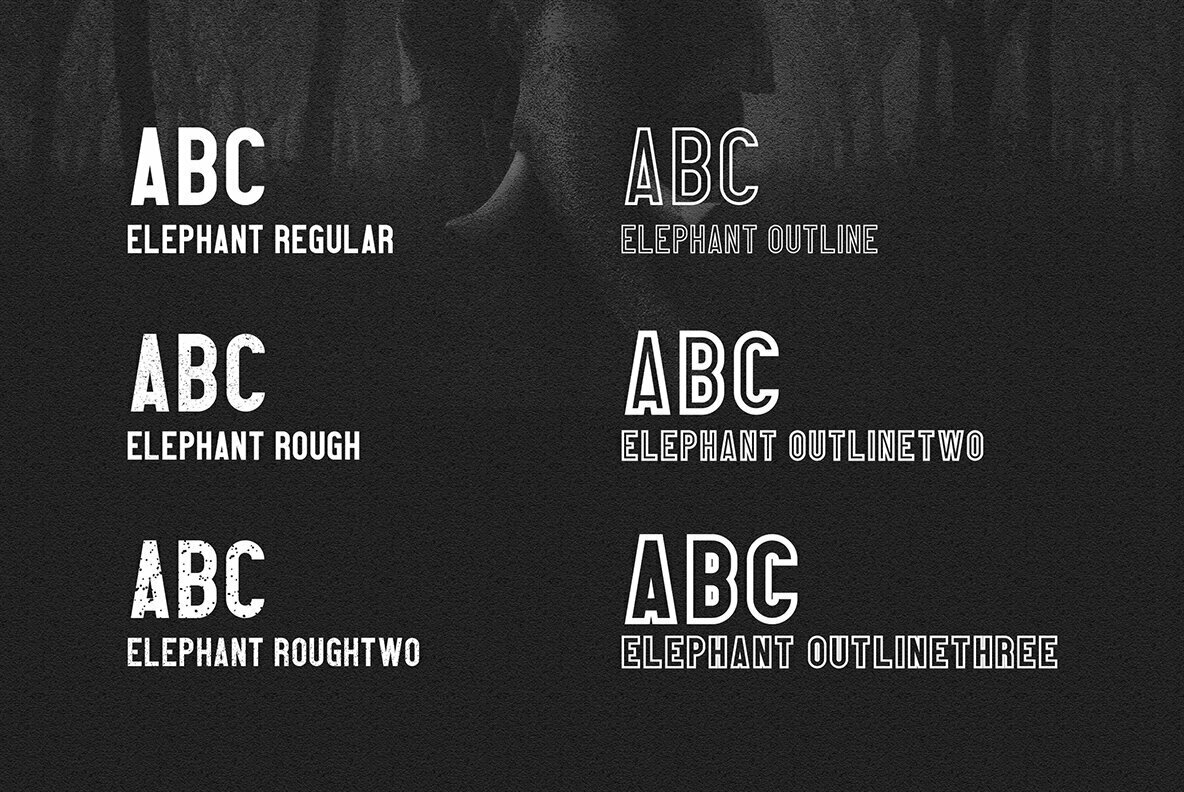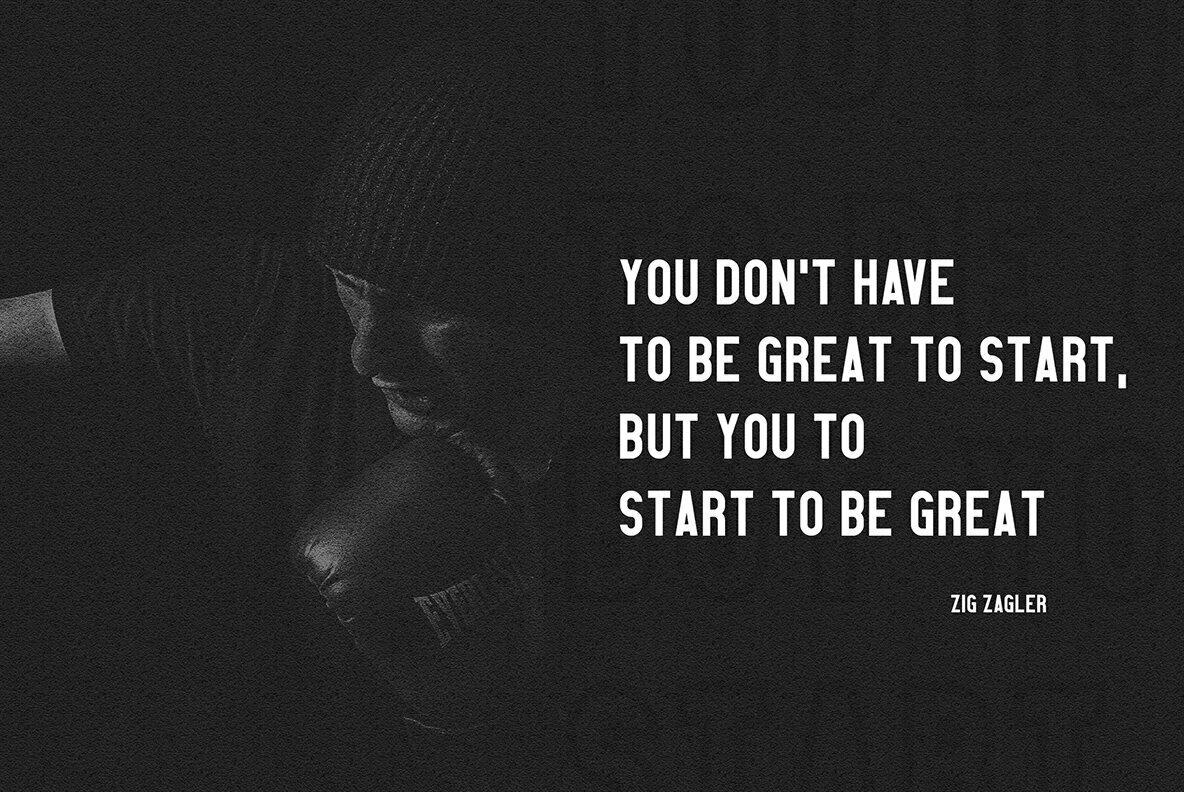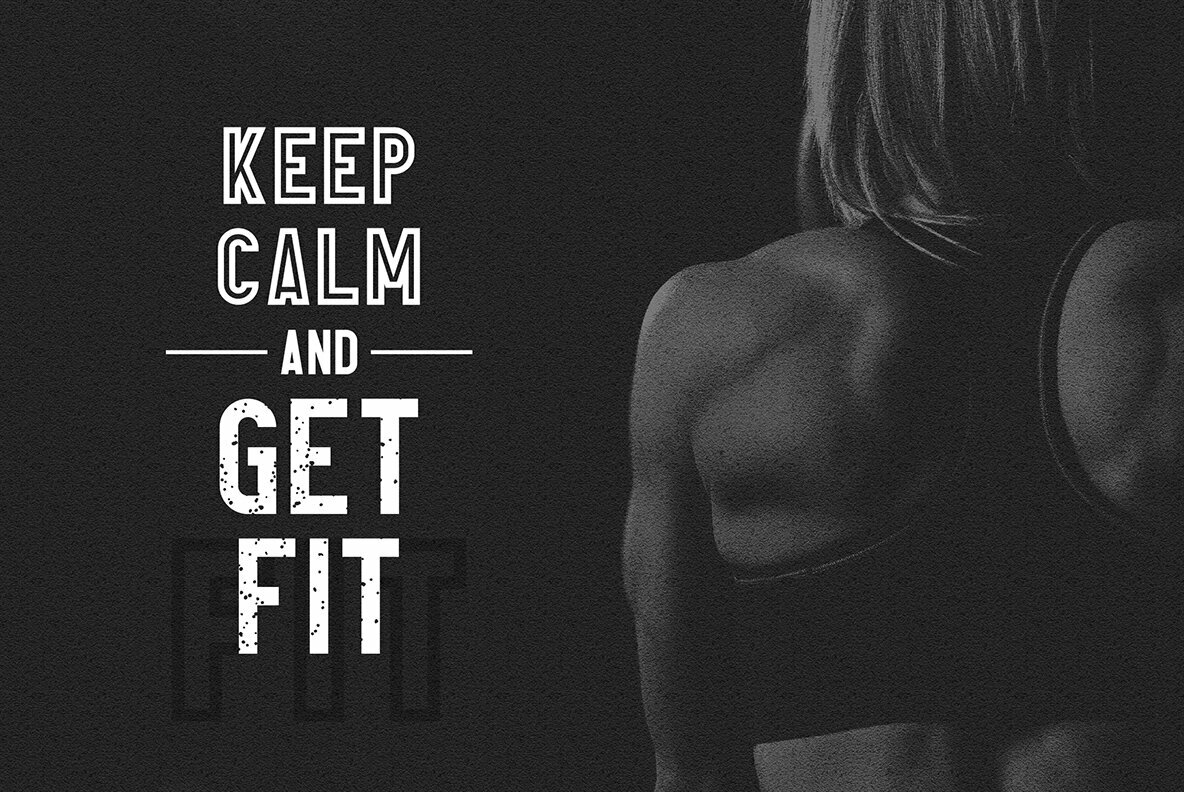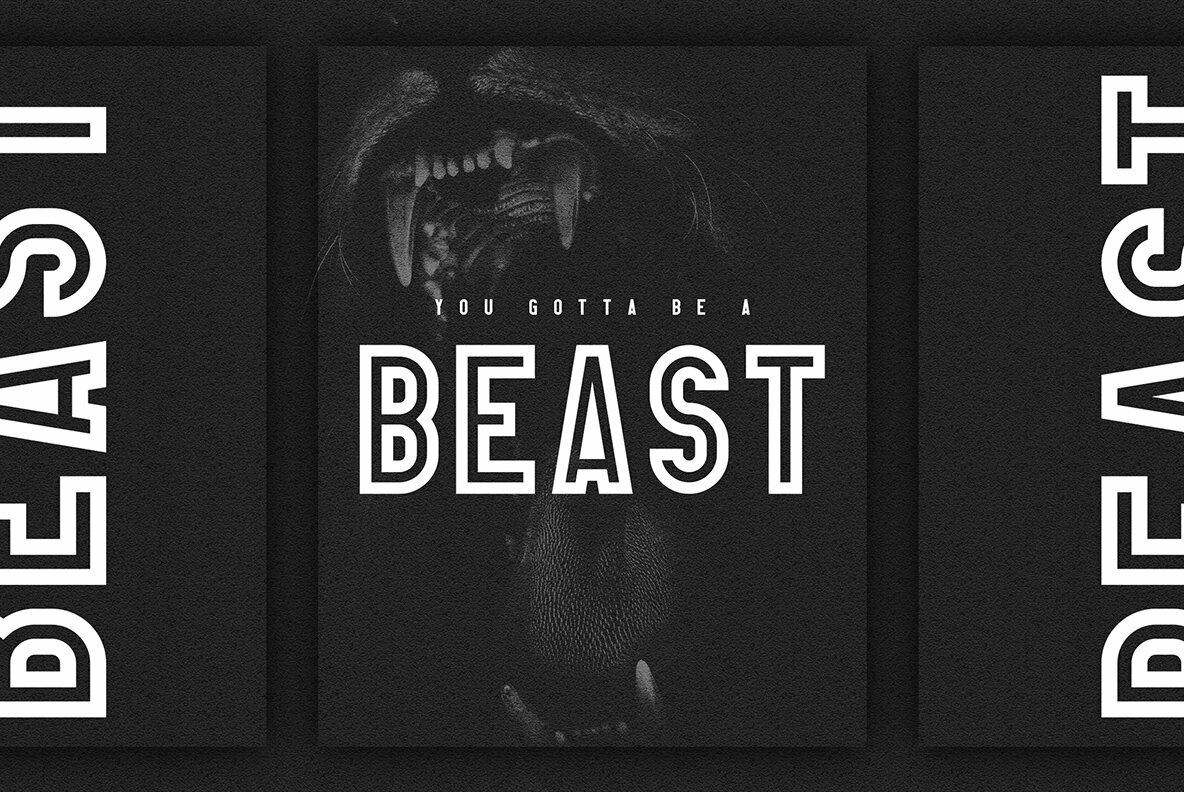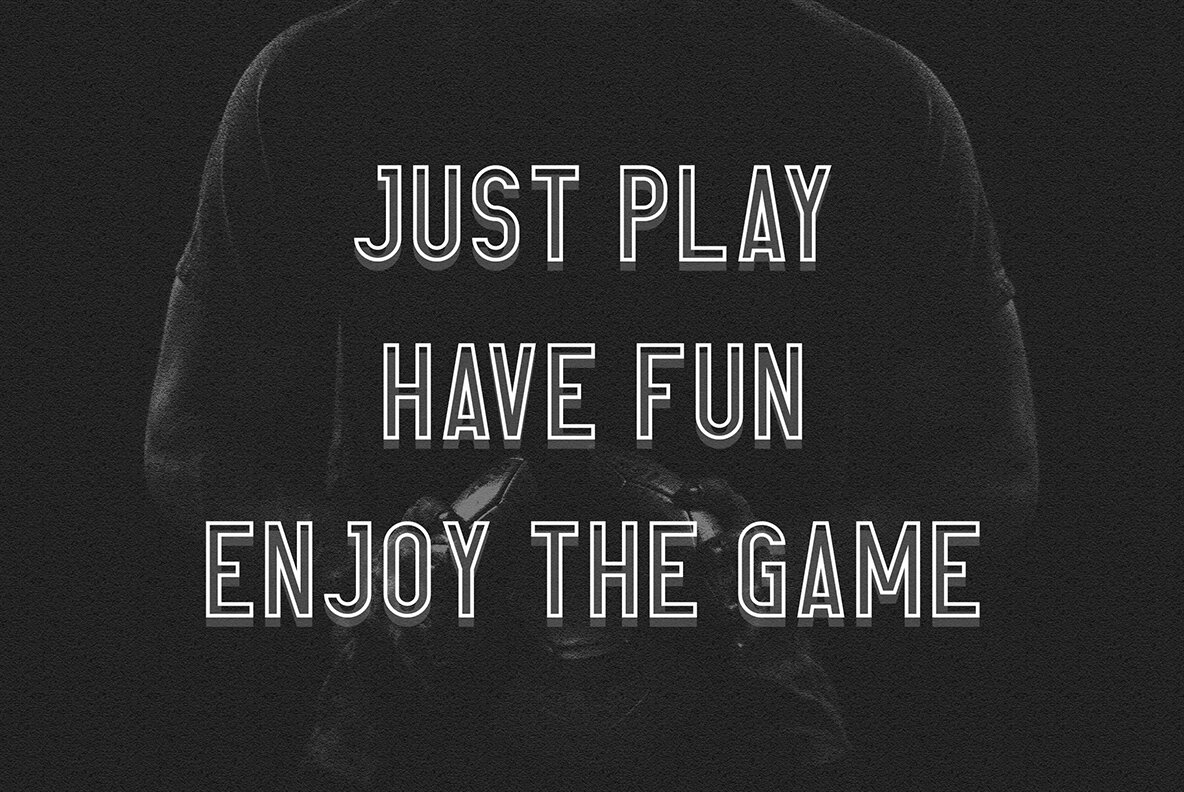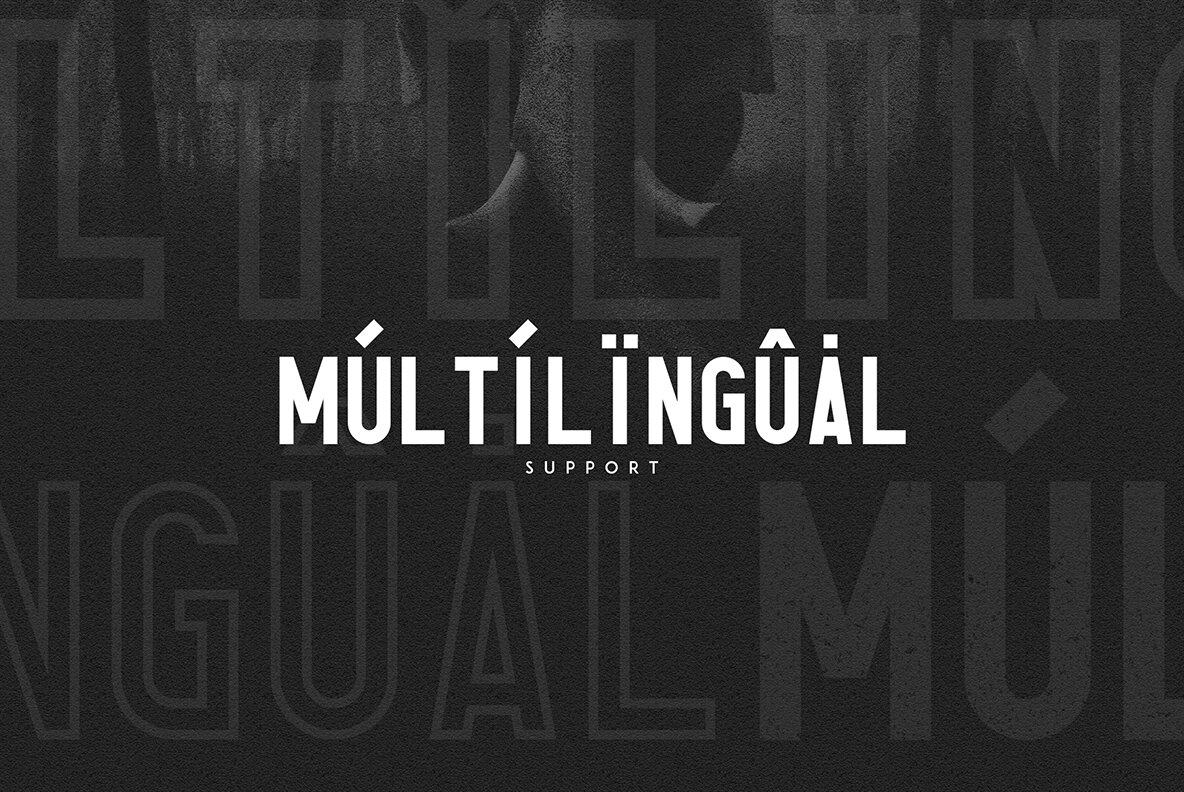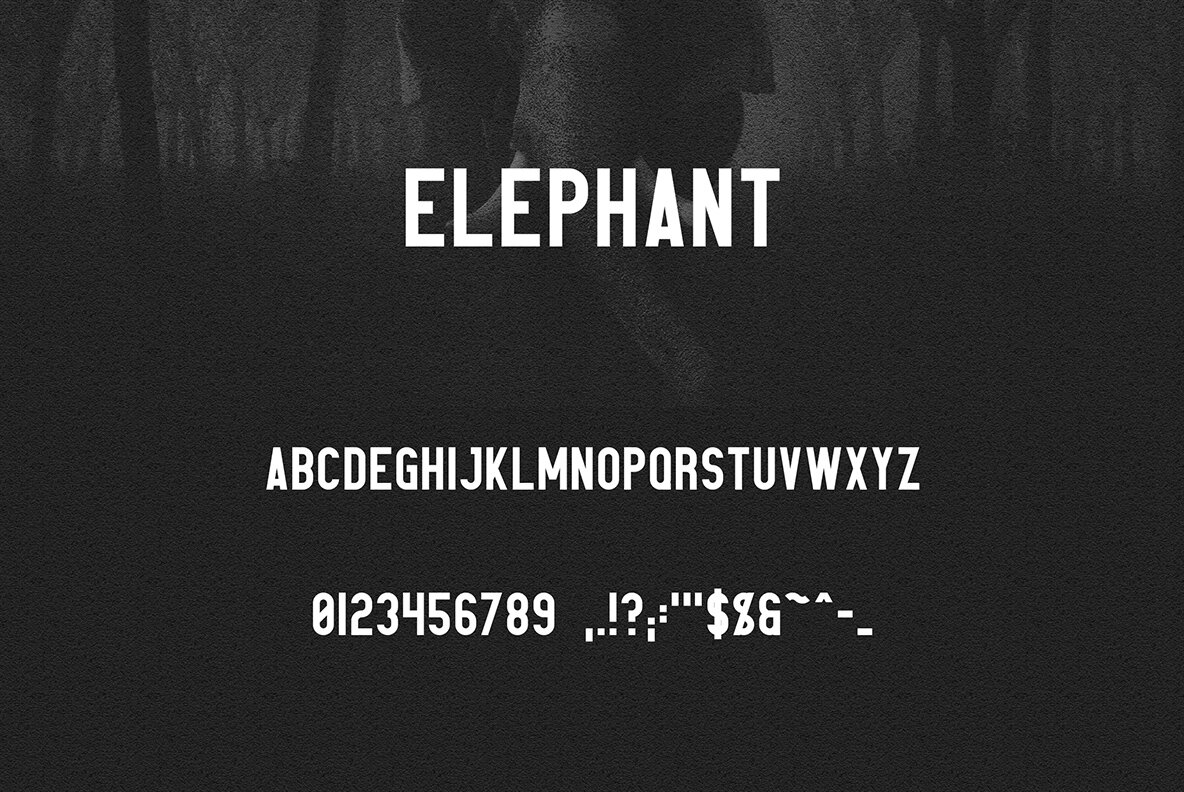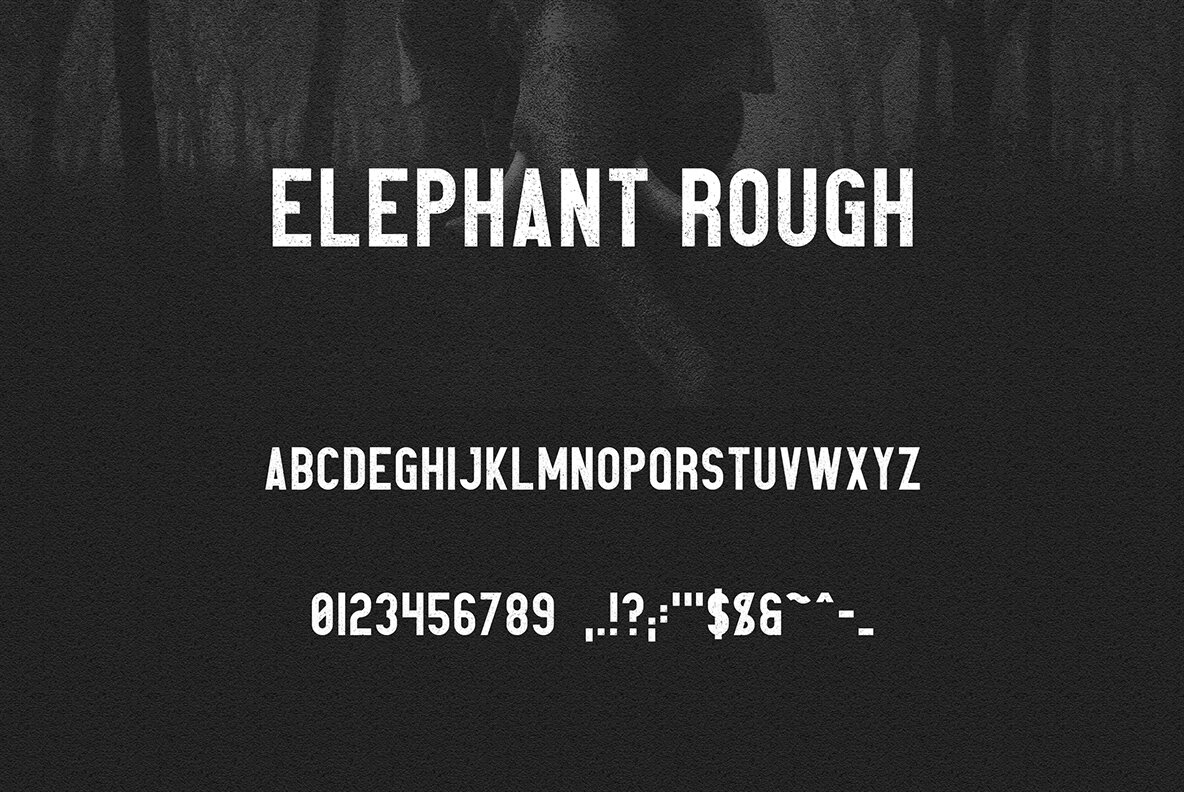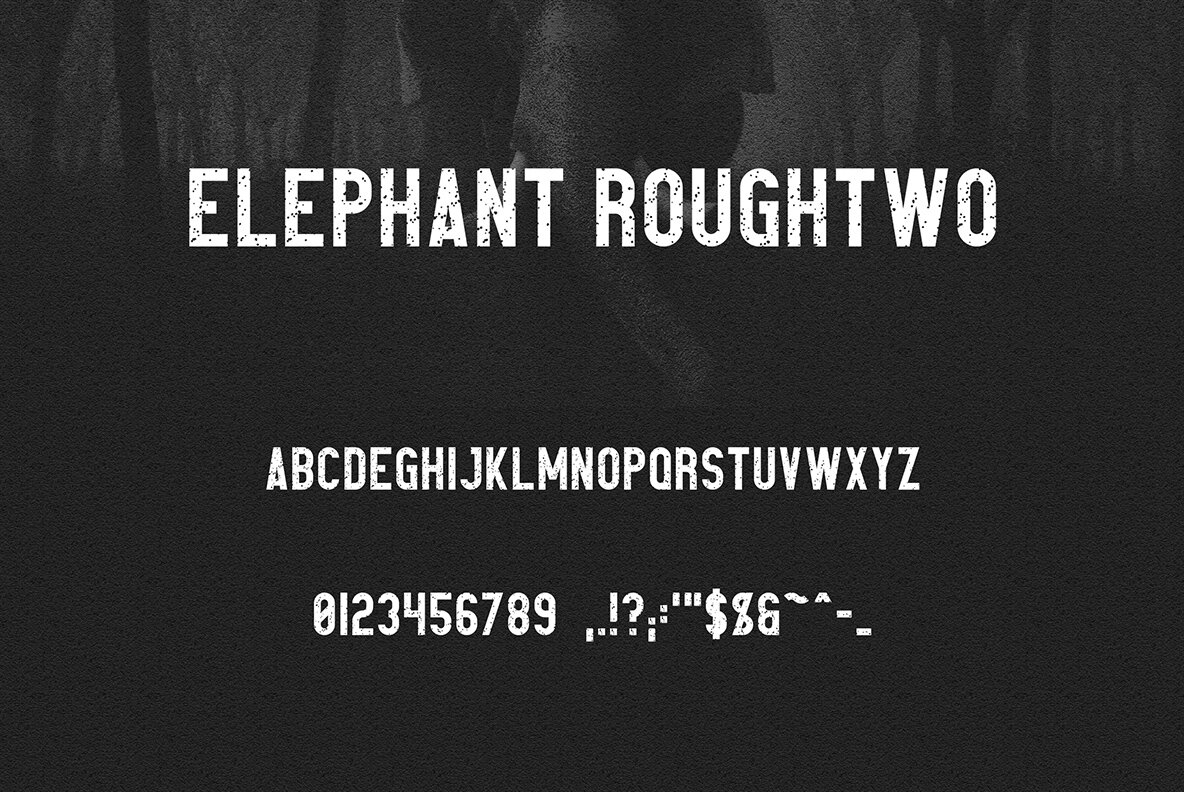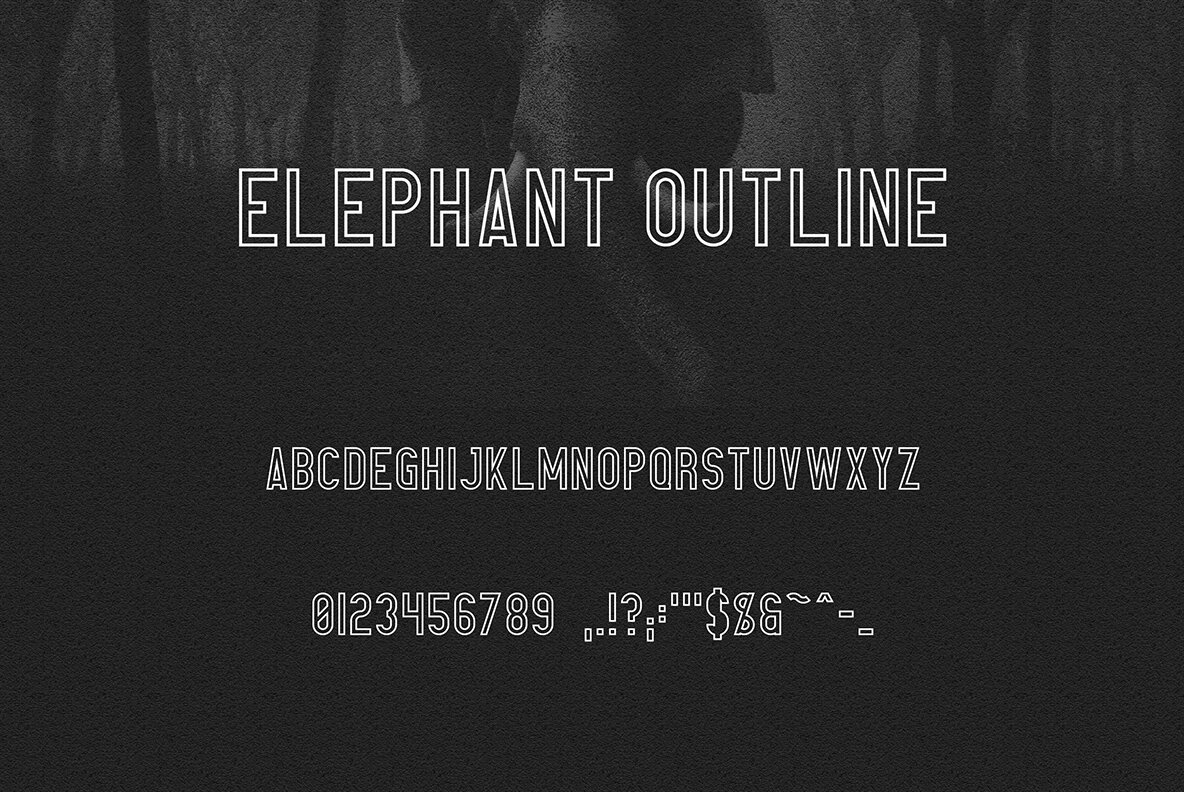
Elephant Font
Elephant is a bold, powerful sans serif typeface with 6 fonts and multilingual support. It's a very versatile font that works great in large and small sizes.Elephant is perfect for branding projects, home-ware designs, product packaging, magazine headers - or simply as a stylish text overlay to any background image.
- Uppercase, Lowercase, Numeral, Punctuation & Symbol
- Regular
- Rough
- Rough Two
- Outline
- Outline Two
- Outline Three